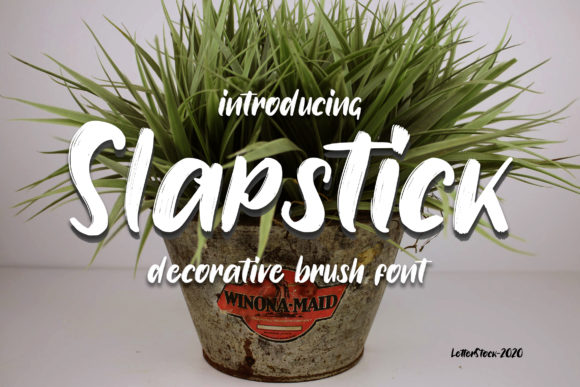
Introducing Slapstick Font, a display font family bursting with character and charm. Inspired by the harmonious blend of a brush pen and pencil, Slapstick captivates with its endearing and authentic appearance. Each letter is a testament to the beauty of handwritten art, inviting you to infuse your projects with a touch of genuine charm.
Unleash your creativity with Slapstick, the perfect font for mobile app design. Its playful and inviting nature effortlessly captures attention, making it an ideal choice for creating engaging and memorable user interfaces. Let Slapstick's unique personality shine through in your designs, leaving a lasting impression on your users.
More than just a font, Slapstick is an artistic expression that adds a touch of uniqueness to any project. Whether you're designing logos, posters, or social media graphics, Slapstick's distinct style will elevate your work, making it stand out from the crowd. Its versatility extends to DIY projects as well, allowing you to add a personal touch to home décor, invitations, and more.
Embrace the beauty of handwritten art with Slapstick, a font that evokes a sense of nostalgia and authenticity. Its endearing charm will captivate your audience, leaving them with a lasting impression. Download Slapstick today and embark on a creative journey where your imagination knows no bounds.